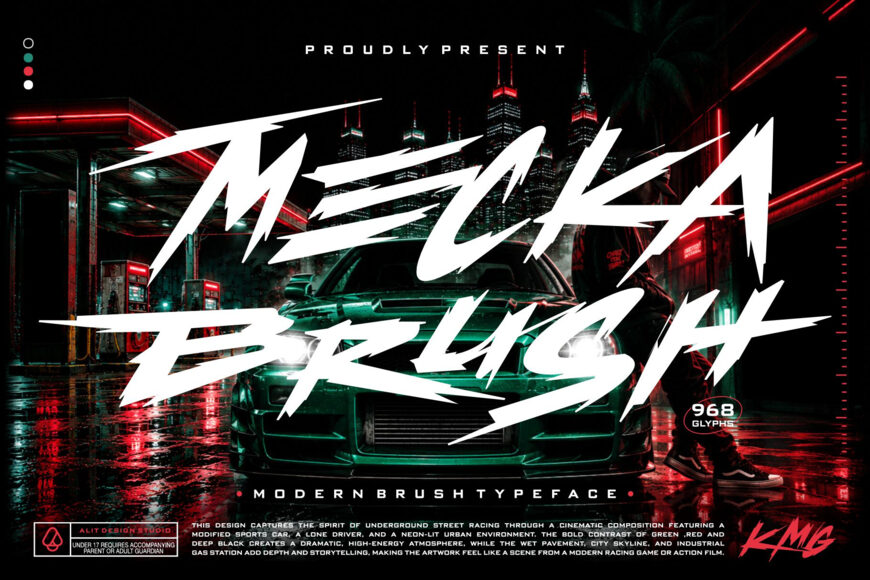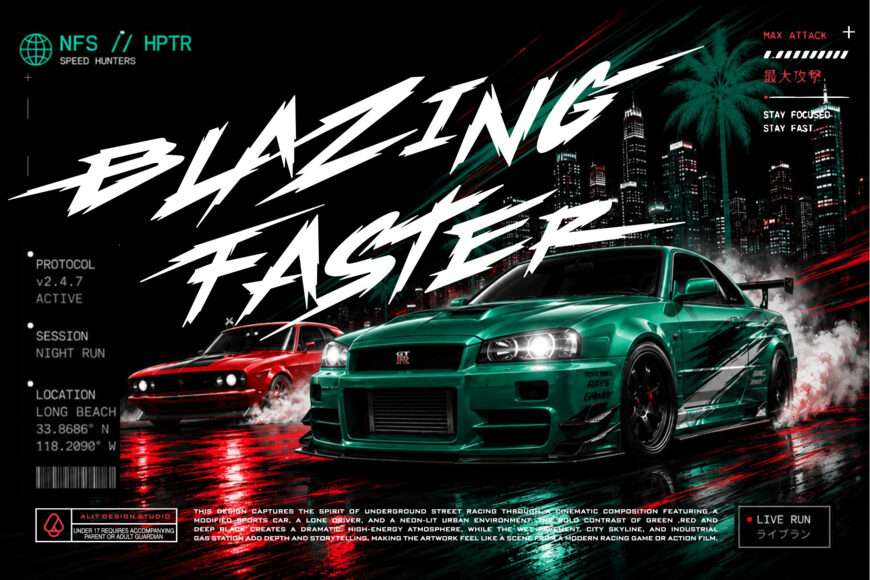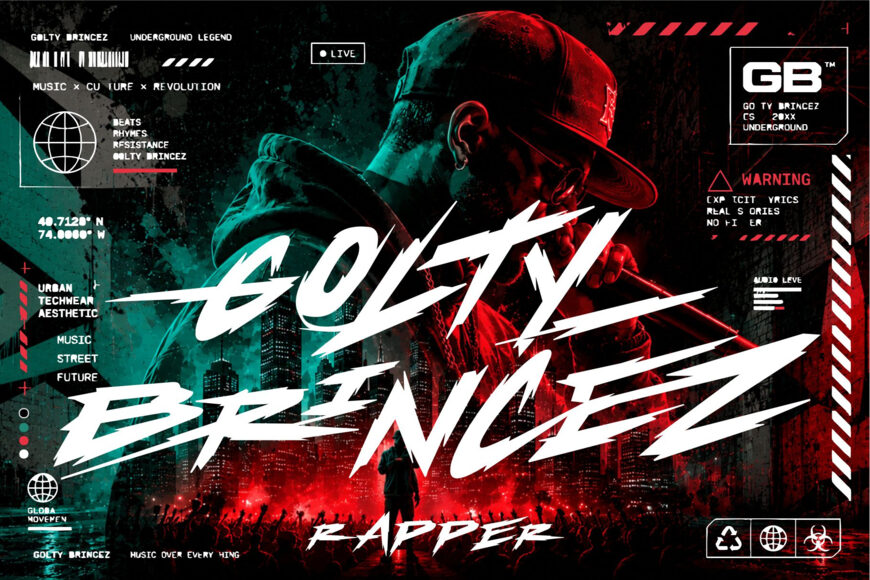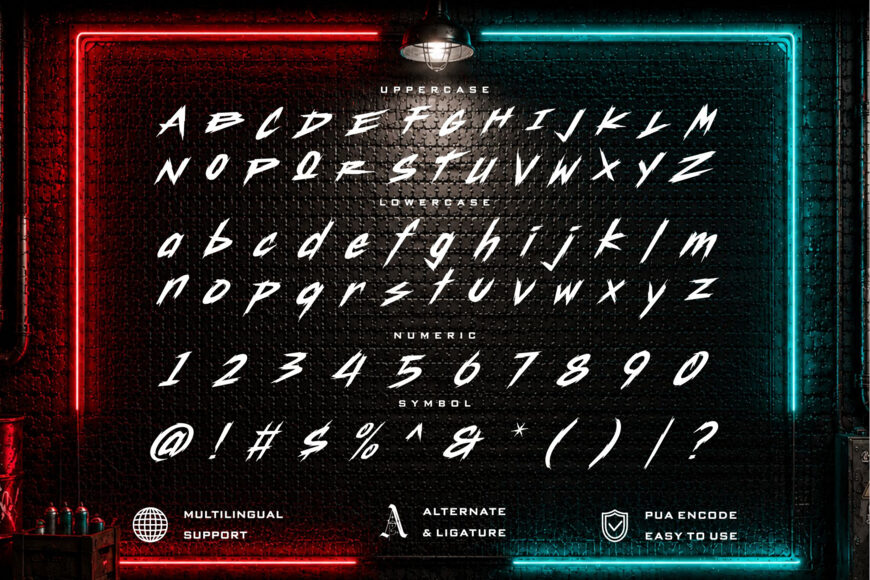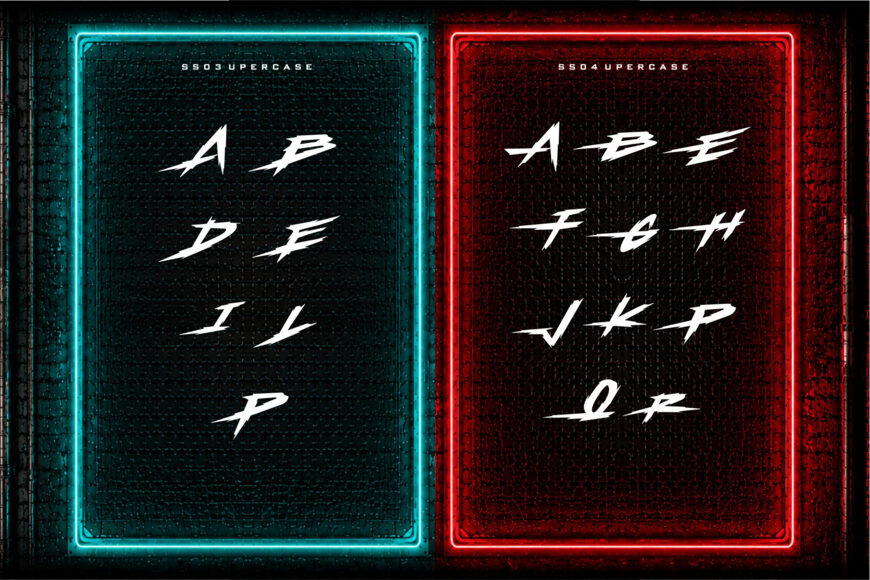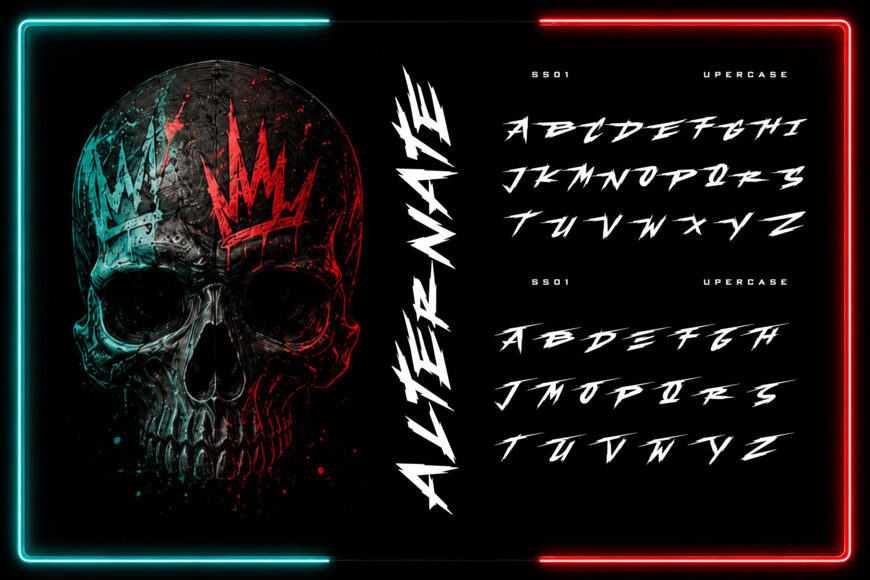
Unleash raw, unapologetic energy into your designs with Mecka Brush Typeface, a modern, aggressive, and highly dynamic brush font. Born from the grit of the streets and inspired by underground racing, urban streetwear, and hip-hop culture, this typeface delivers bold, sweeping strokes that immediately command attention.
Whether you are designing for the fast-paced world of automotive sports or creating a striking visual identity for a streetwear brand, Mecka Brush provides a defiant, edgy aesthetic that stands out. Its fast-stroke styling makes it look authentically hand-painted, giving your projects a cinematic and rebellious vibe.